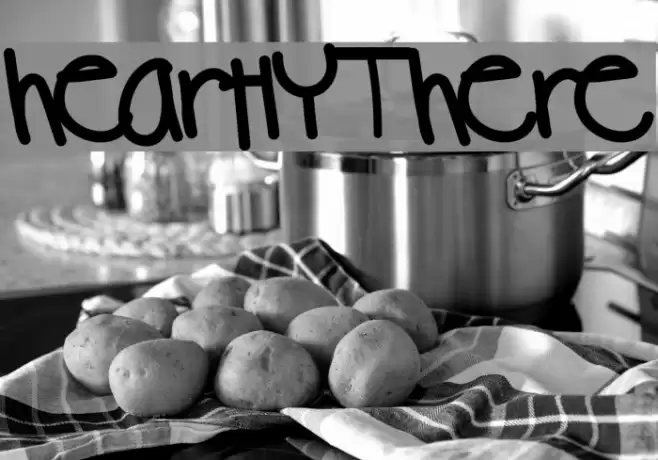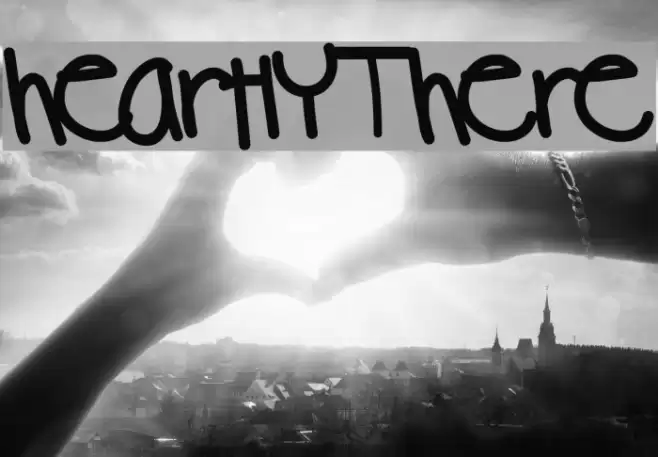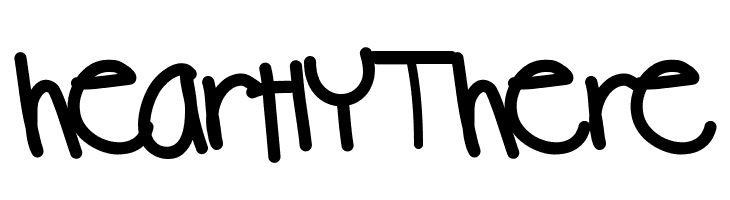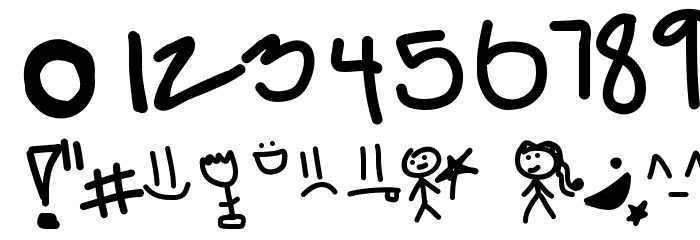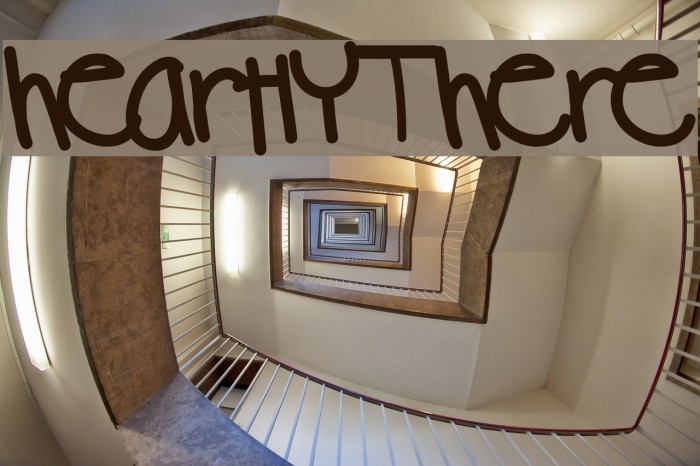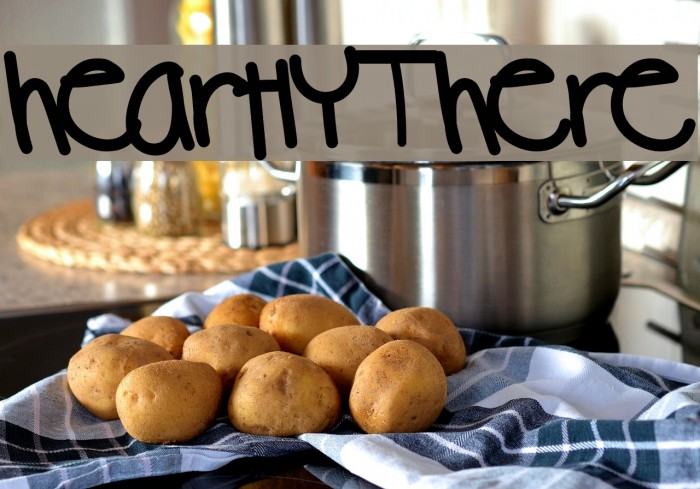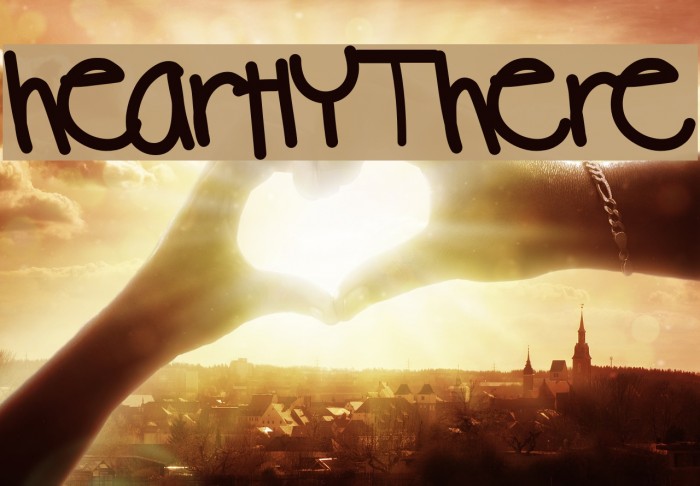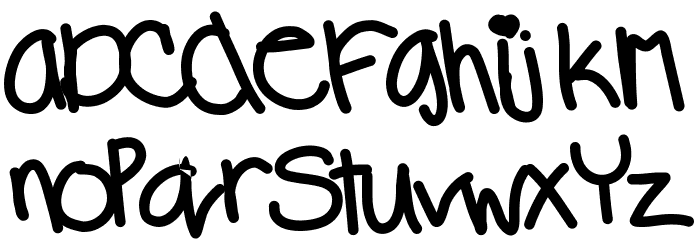
This playful and whimsical font features a handwritten style with a casual and friendly appearance. The characters are rounded and slightly irregular, giving it a personal touch. The uppercase and lowercase letters maintain a consistent flow, while the numbers and special characters add a fun element with their unique designs. The font's informal style makes it ideal for creative projects that require a touch of personality and charm.
- Proposed Projects: Ideal for greeting cards, children's books, playful branding, and social media graphics.
- Overall Style: Playful
- Use Case: Headlines, Logos, Informal text